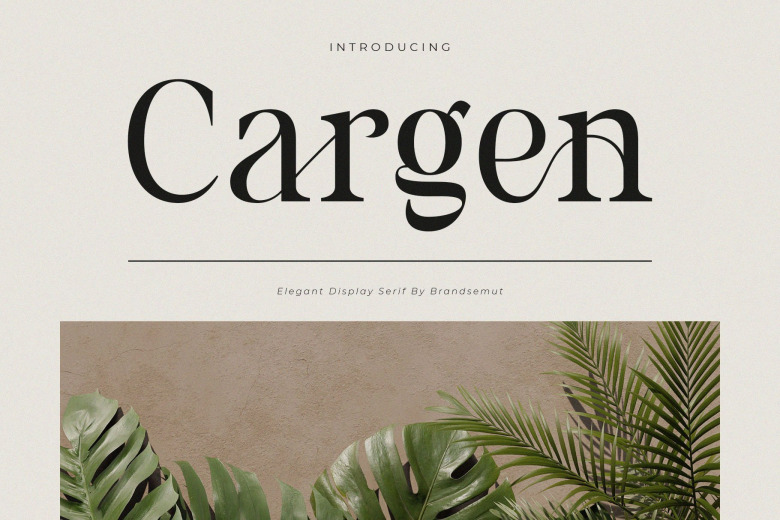
Cargen Font
Cargen Serif Font is a serif font based on hiragana. Cargen- means victorious and beauty. Furthermore, it includes some alternates and ligatures. This typeface is the ideal pick for any project related to Japan, like branding, movie title, restaurant menu, labels, including other types of relevant projects, and loads of possibilities.
Cargen Serif Font